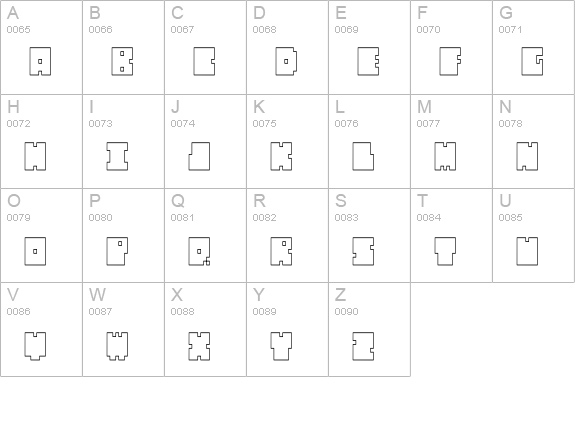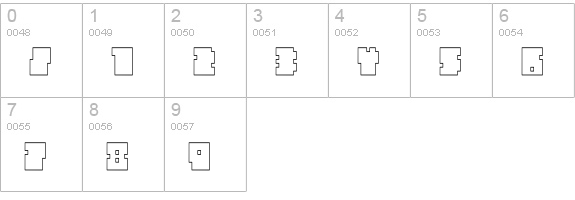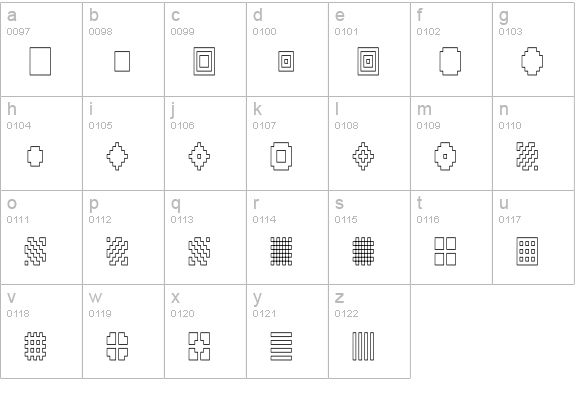
QUBE HOLLOW THIN is a delicate, low-contrast variant in the QUBE typeface family \xE2\x80\x94 well suited to fashion editorial, minimal branding, and high-contrast display.
Introducing QUBE HOLLOW THIN, a mesmerizing display font that effortlessly combines modern elegance with a touch of sophistication. This font is a testament to the power of minimalism, featuring clean lines and a sleek, thin design that will captivate any audience. QUBE HOLLOW THIN is the perfect choice for those seeking a font that exudes professionalism and sophistication. Its slender letterforms create a sense of grace and refinement, making it ideal for sleek logos, branding materials, and high-end editorial designs. With its unique hollow design, QUBE HOLLOW THIN adds a touch of intrigue and sophistication to any project. Each letter is meticulously crafted to ensure legibility and visual appeal, making it a versatile font that can be used across a wide range of applications. One of the most remarkable aspects of QUBE HOLLOW THIN is that it is freely available to download at FontsMarket.com. This means that you can easily access this stunning font to elevate your design projects without any additional cost. Whether you're a professional designer or a hobbyist, QUBE HOLLOW THIN provides an opportunity to enhance your creative endeavors without breaking the bank. Don't miss out on the opportunity to add a touch of elegance and sophistication to your design projects. Download QUBE HOLLOW THIN today from FontsMarket.com and unlock the potential of this remarkable font.